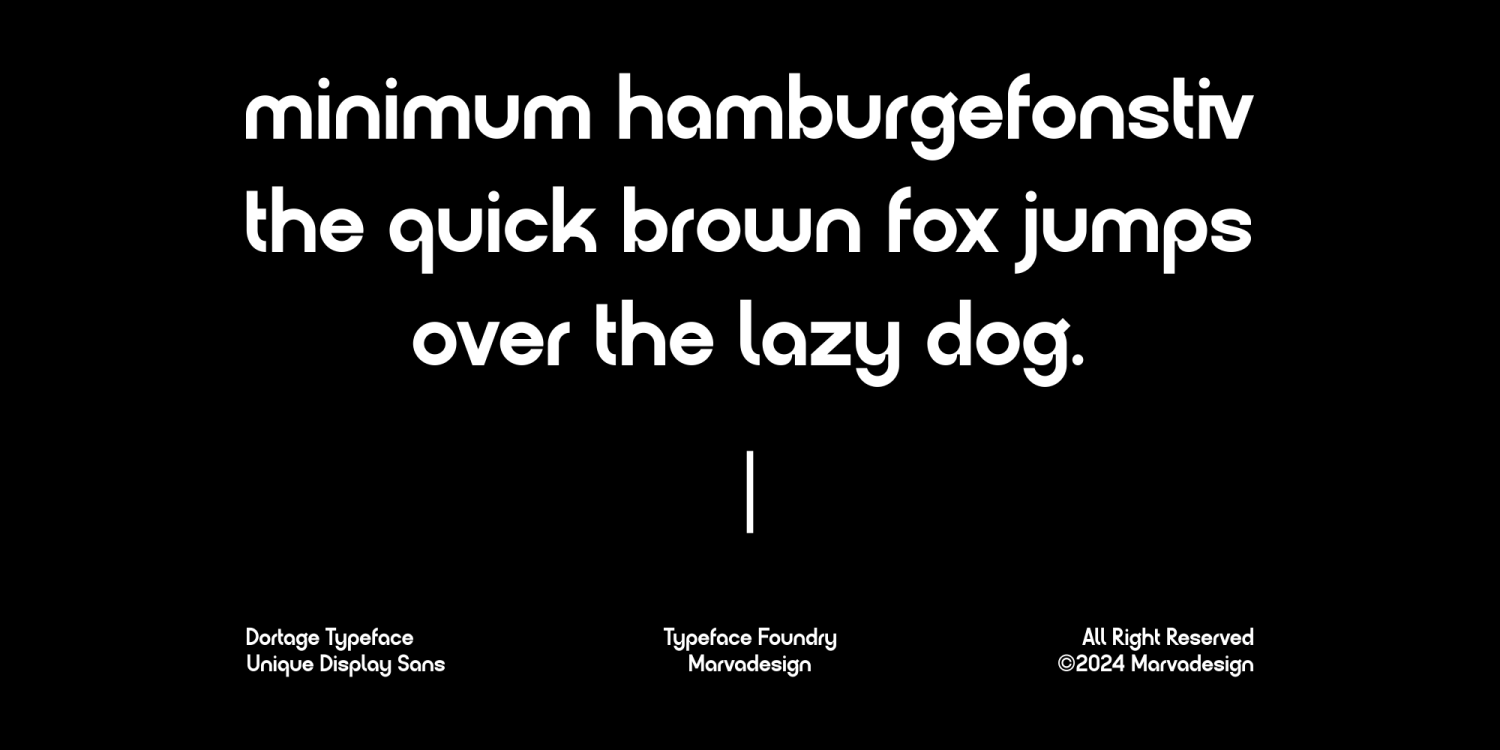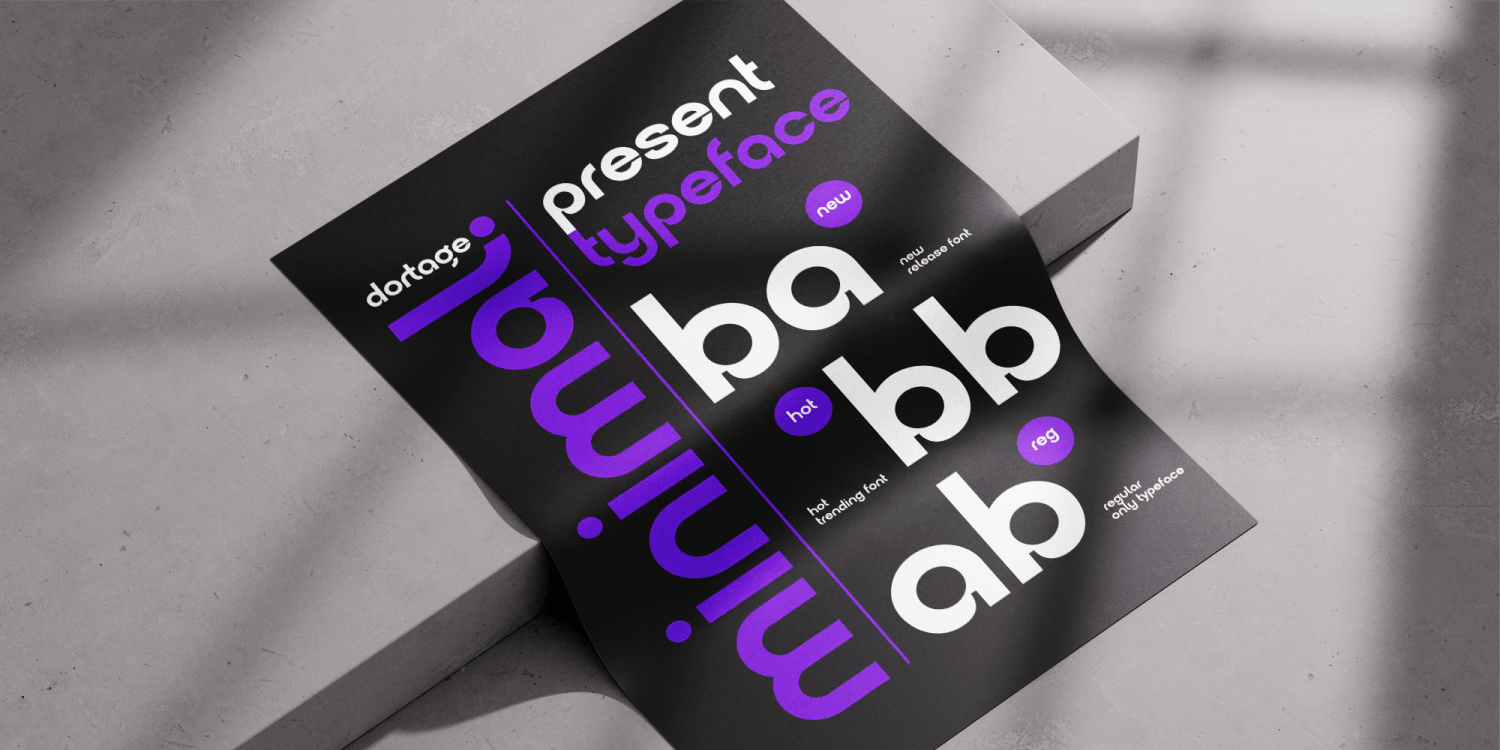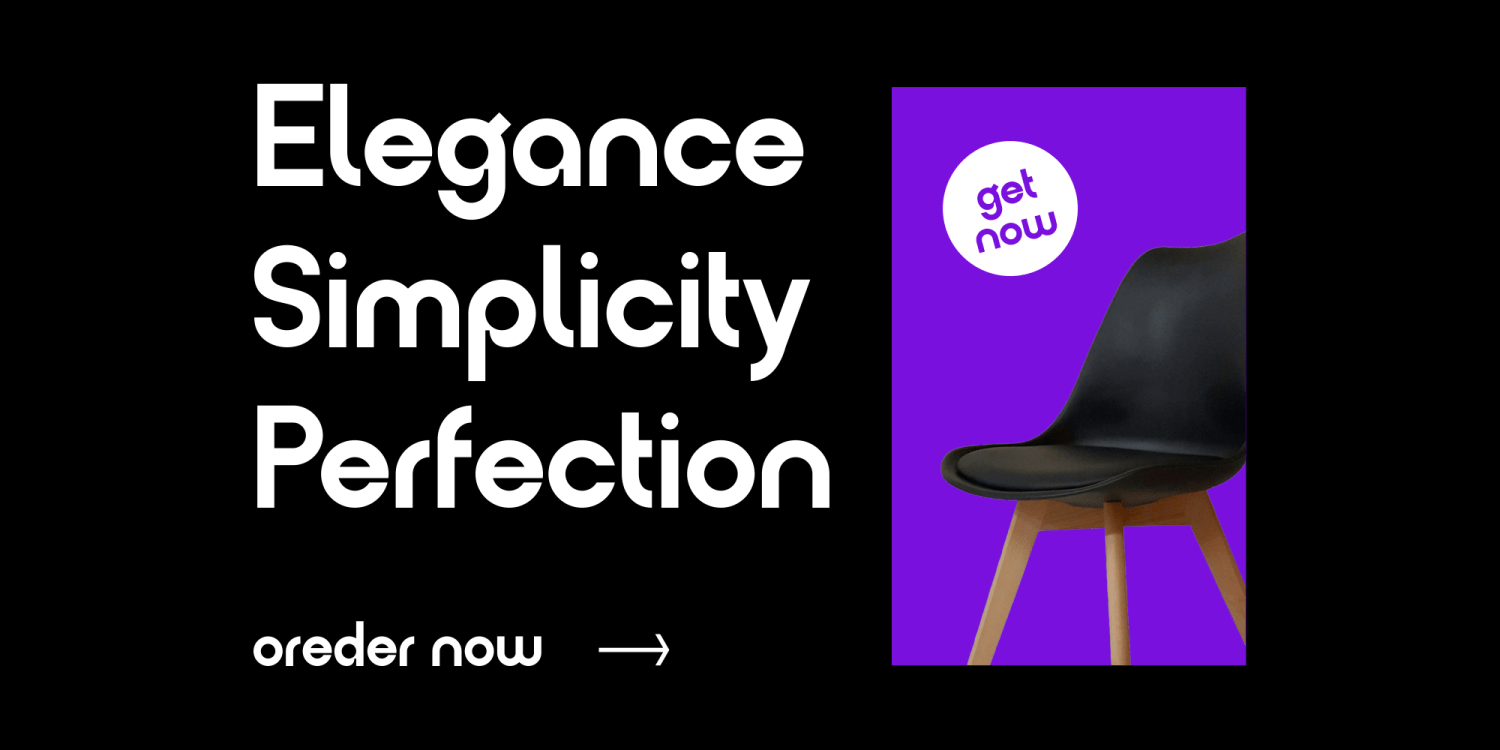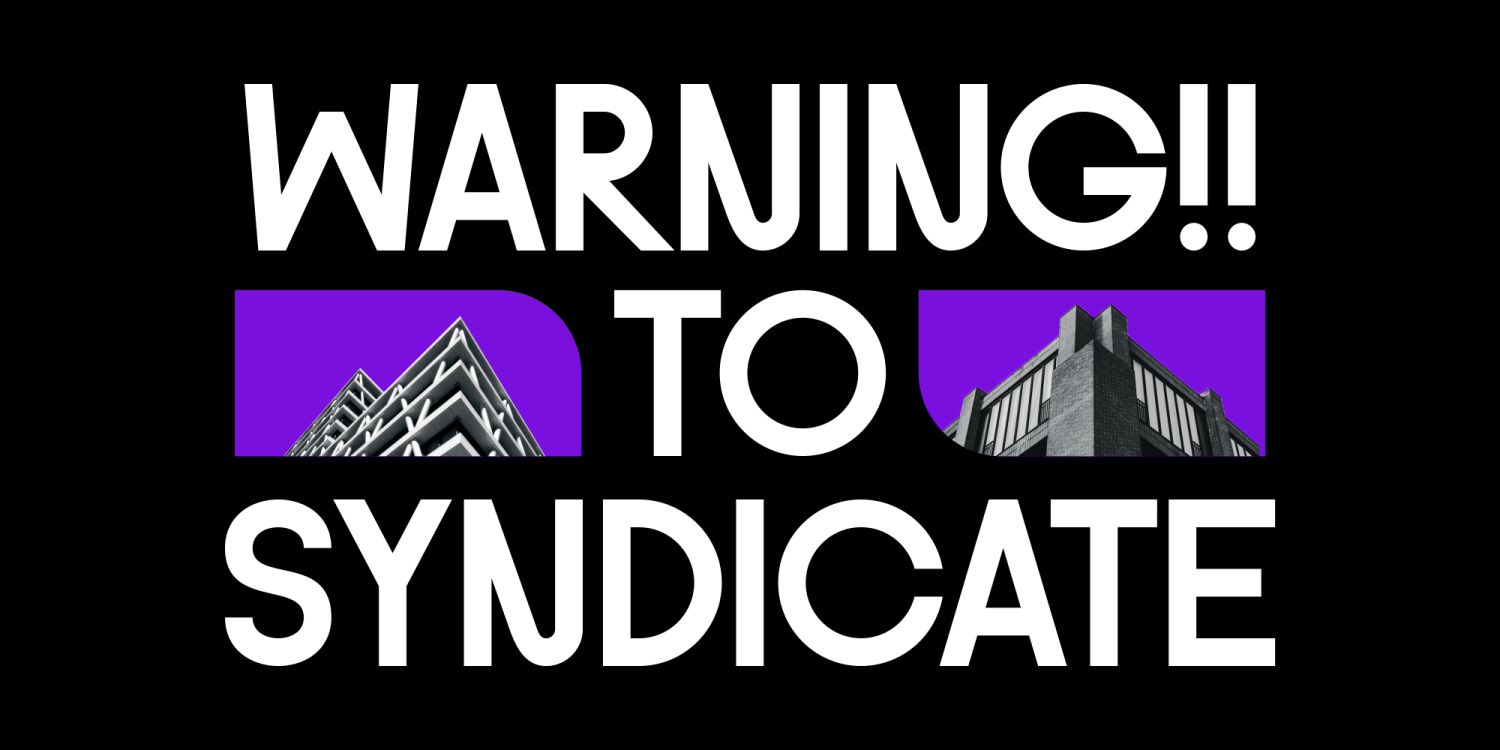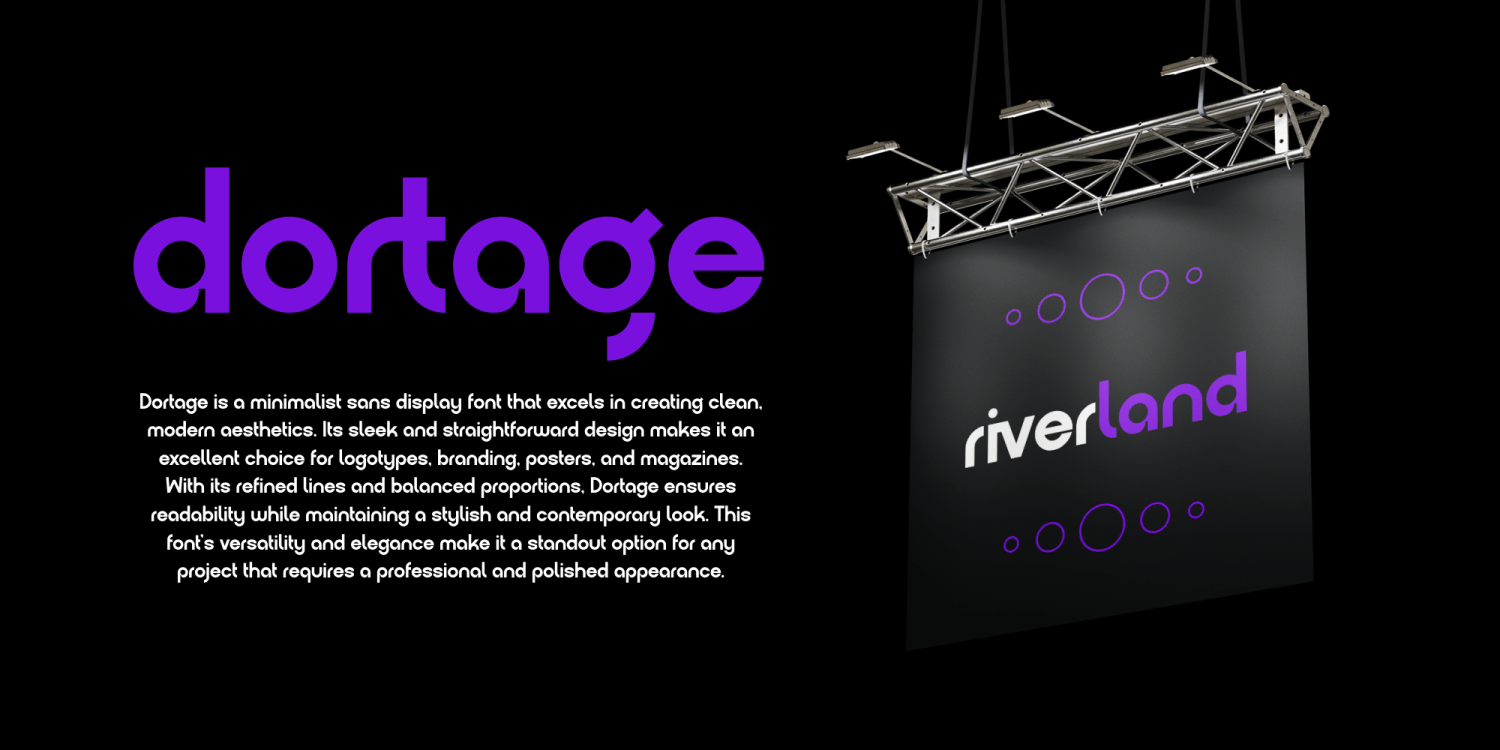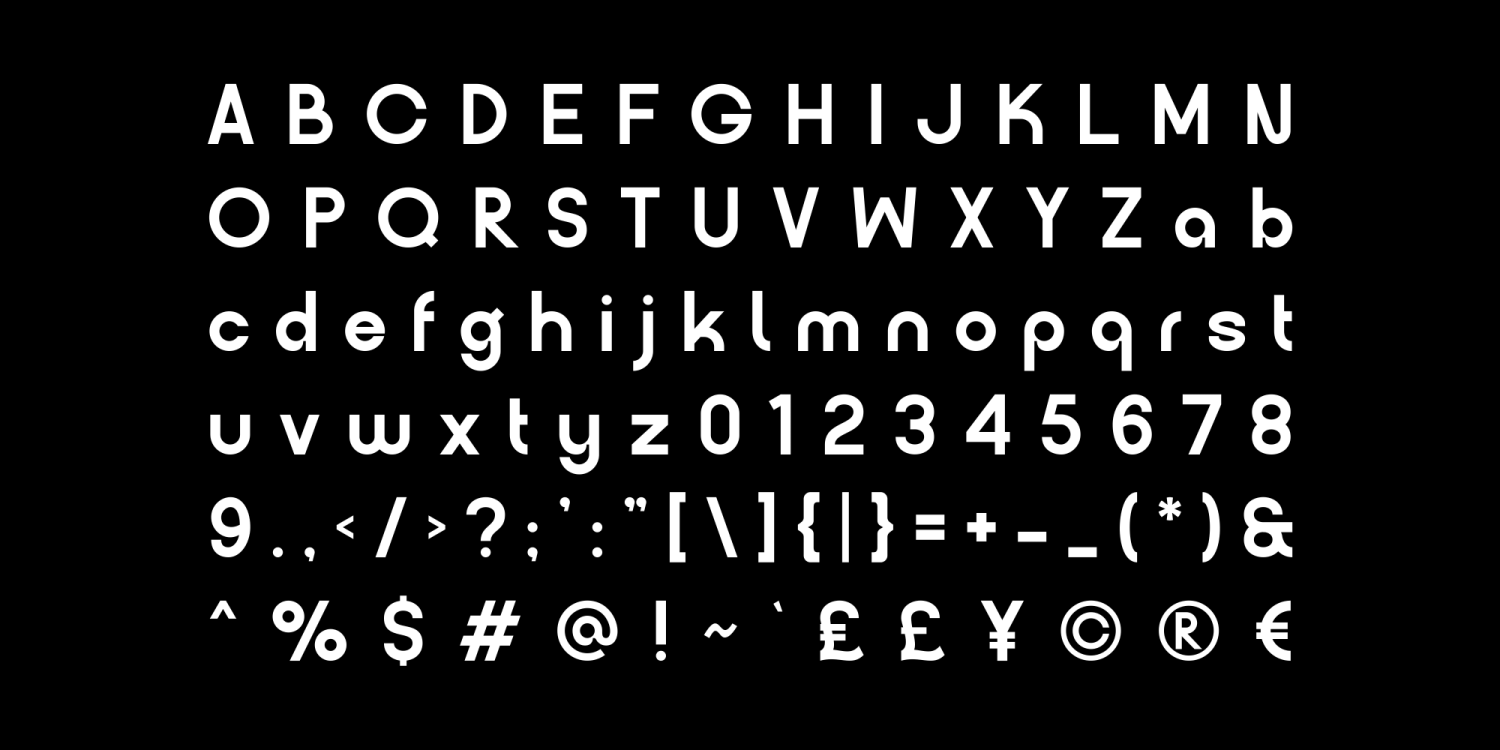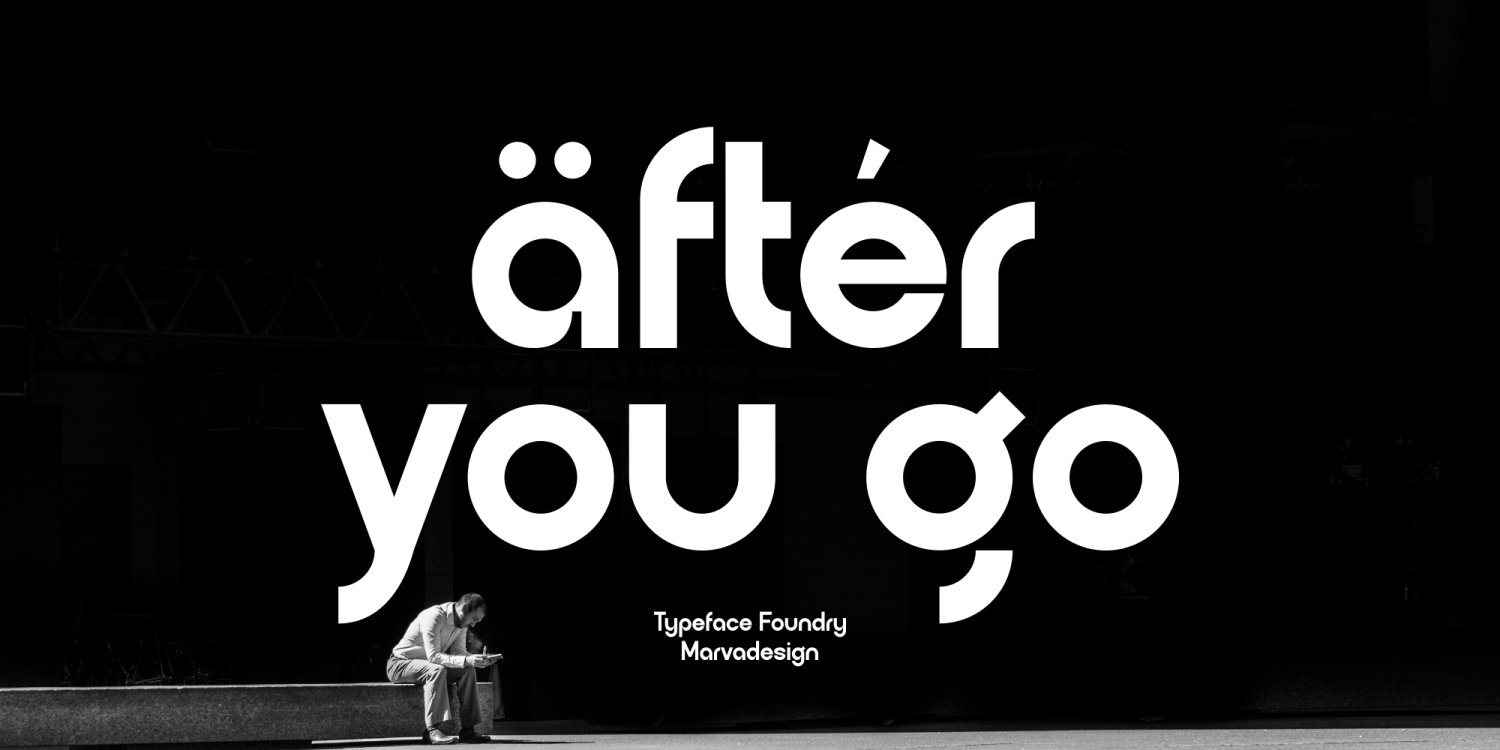
Dortage
Font Family by Marvadesign
Introducing Dortage – A minimalist sans display font that excels in creating clean, modern aesthetics. Its sleek and straightforward design makes it an excellent choice for logotypes, branding, posters, and magazines. With its refined lines and balanced proportions, Dortage ensures readability while maintaining a stylish and contemporary look. This font's versatility and elegance make it a standout option for any project that requires a professional and polished appearance.